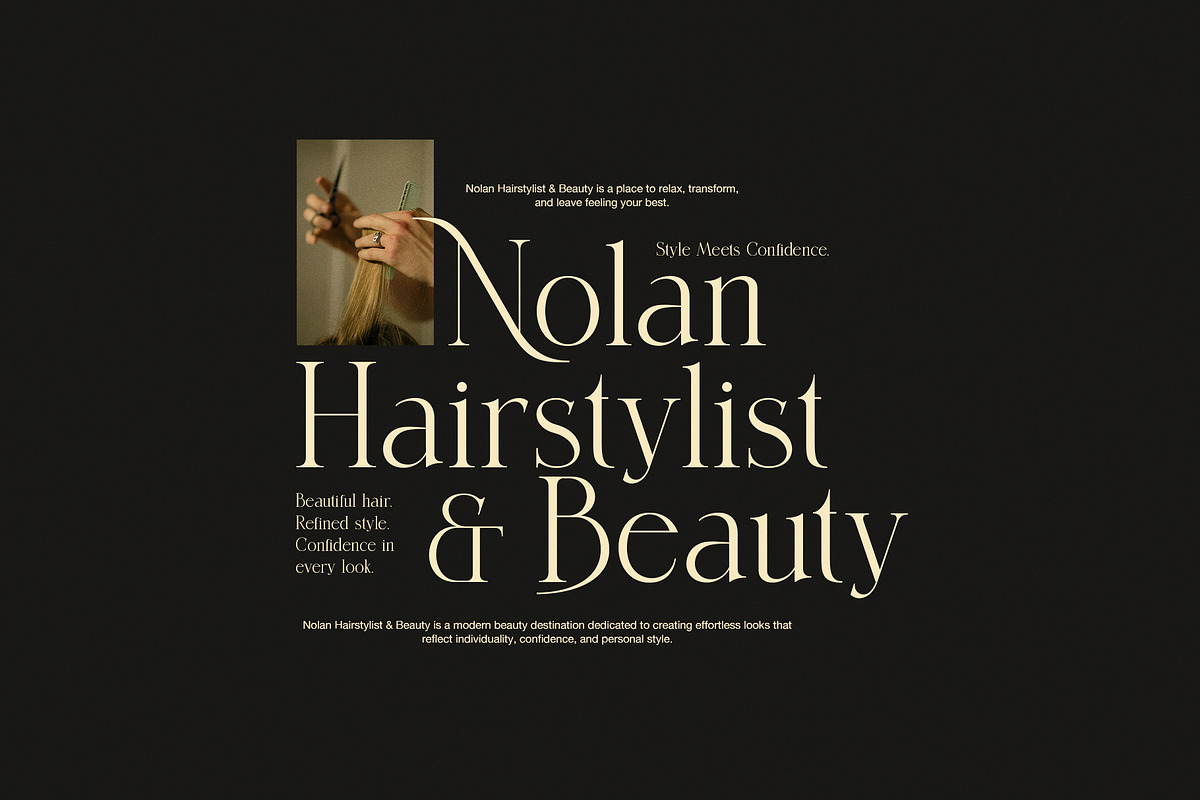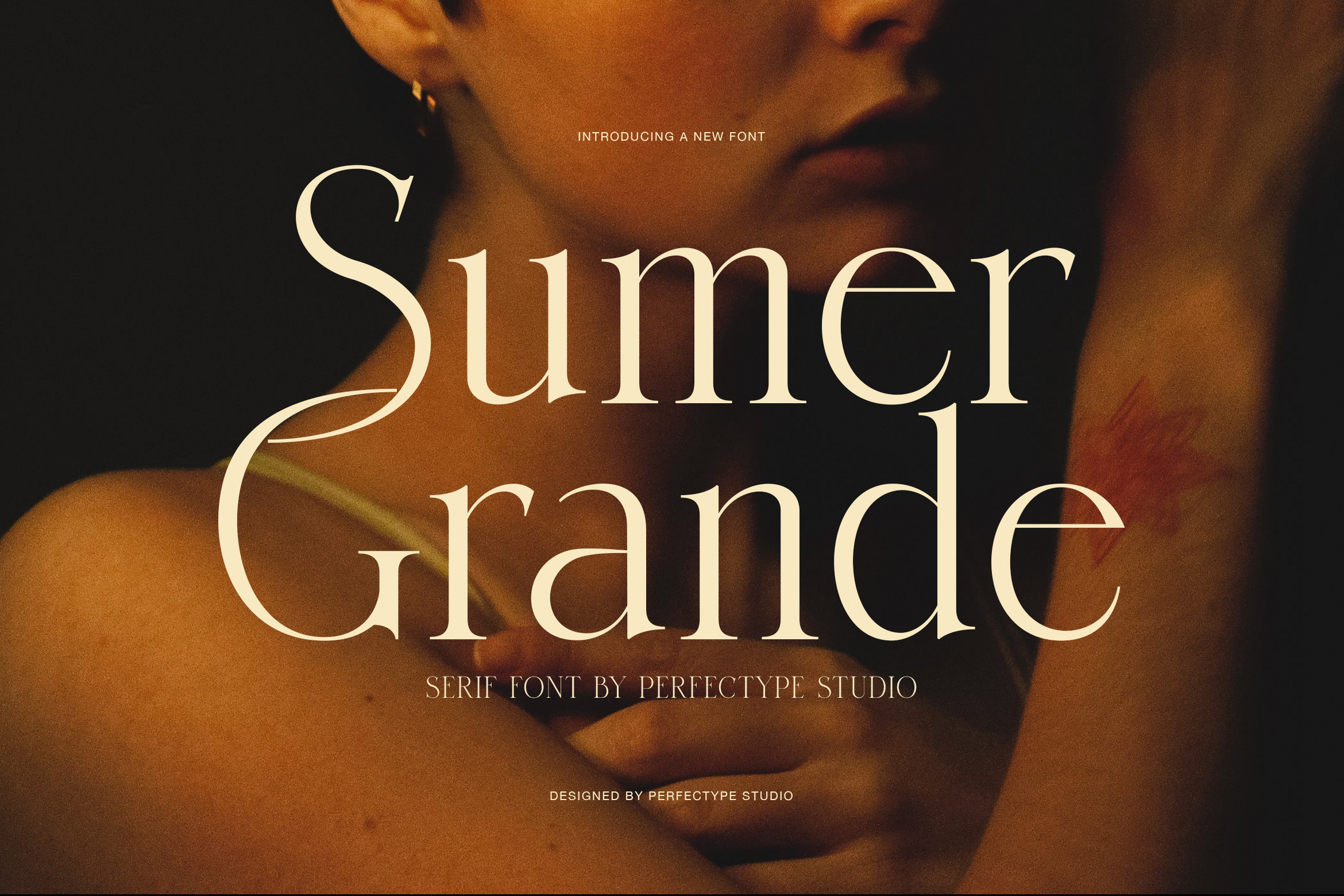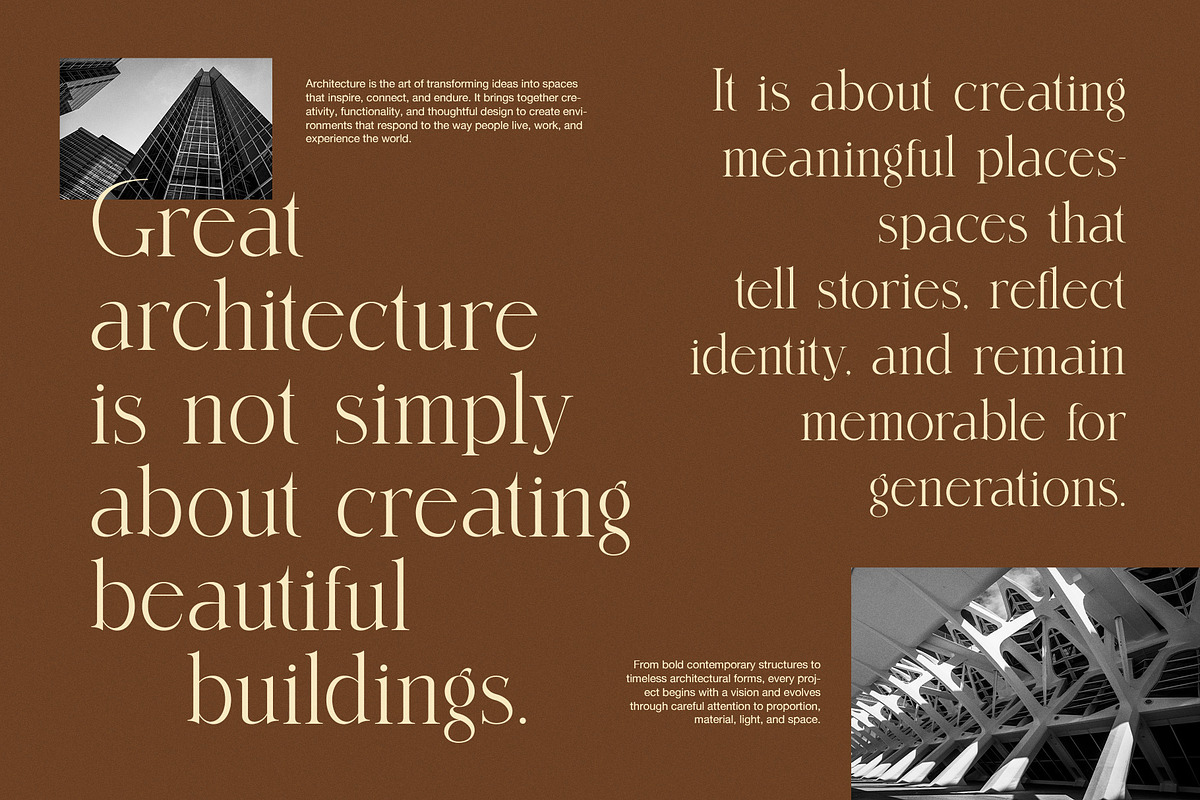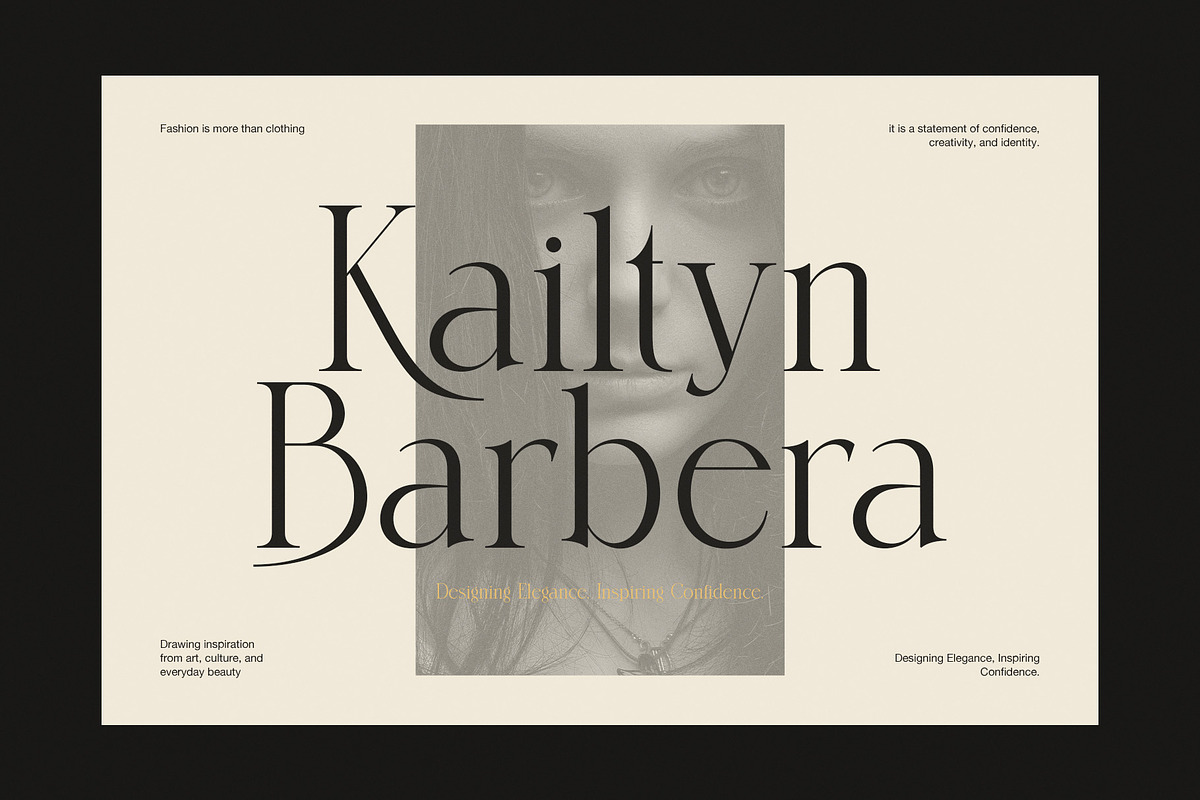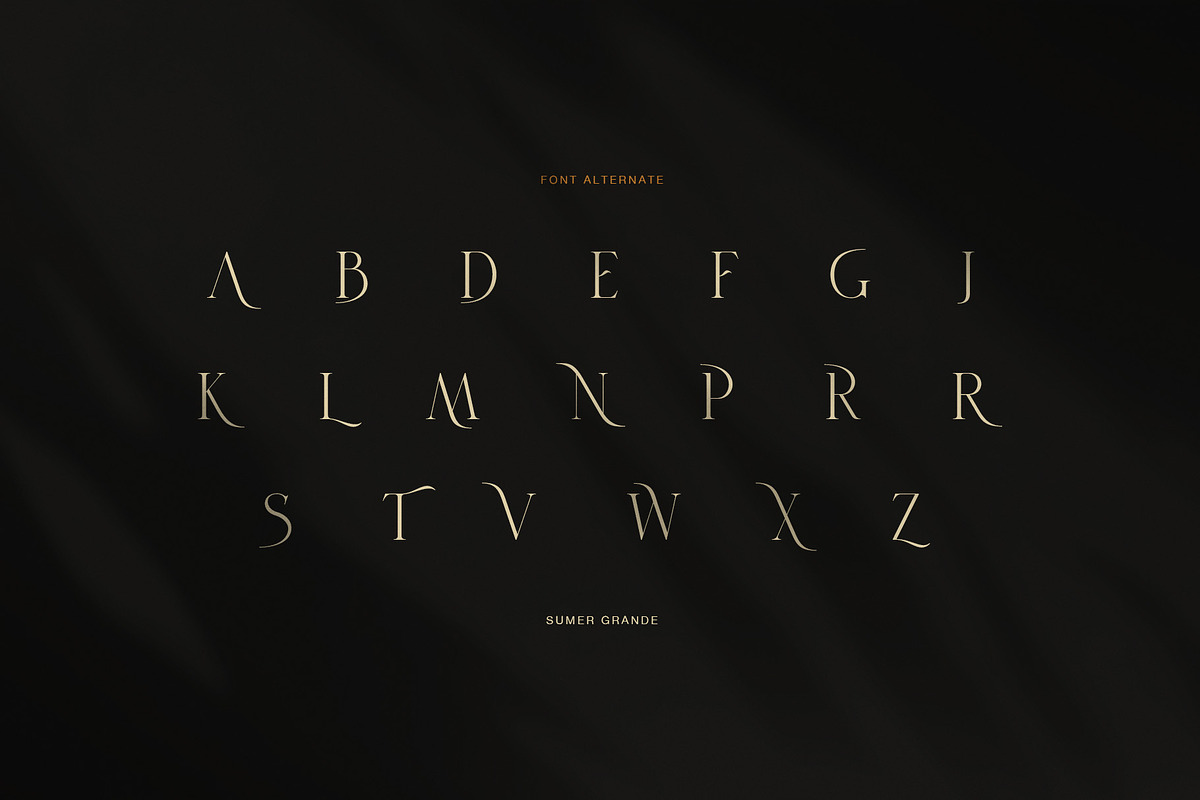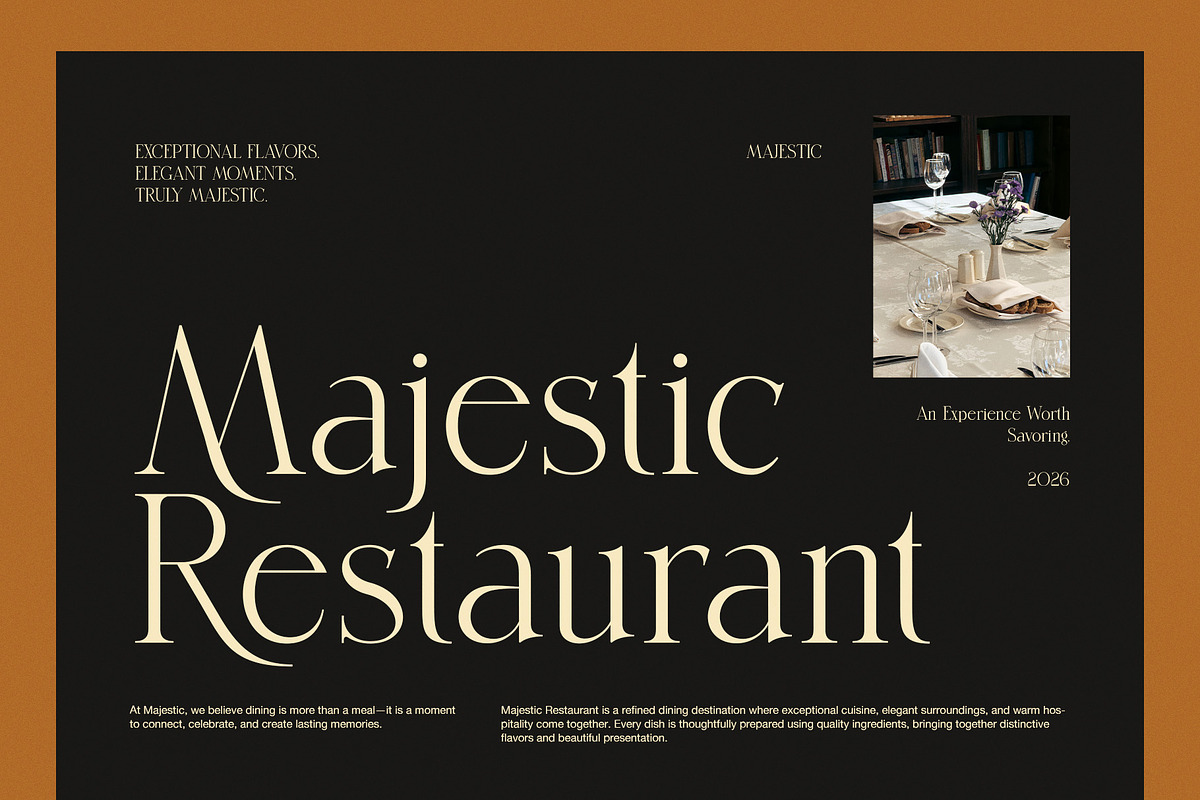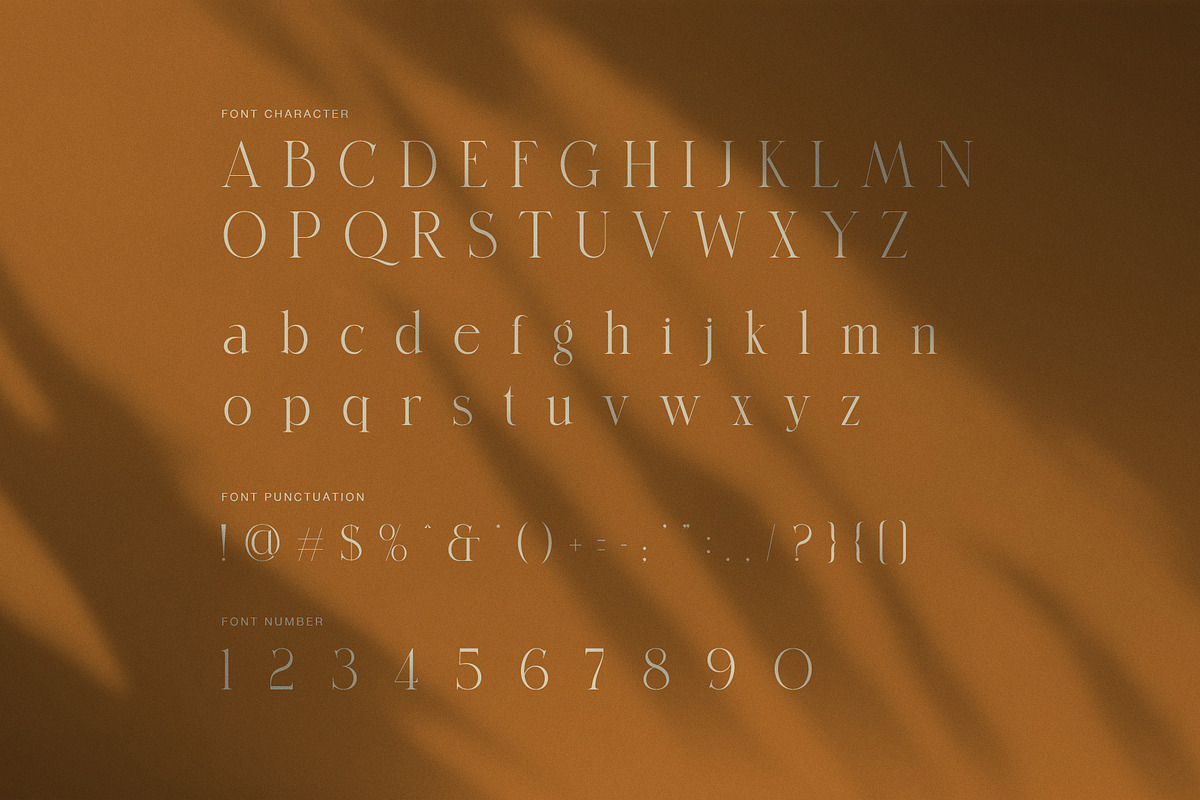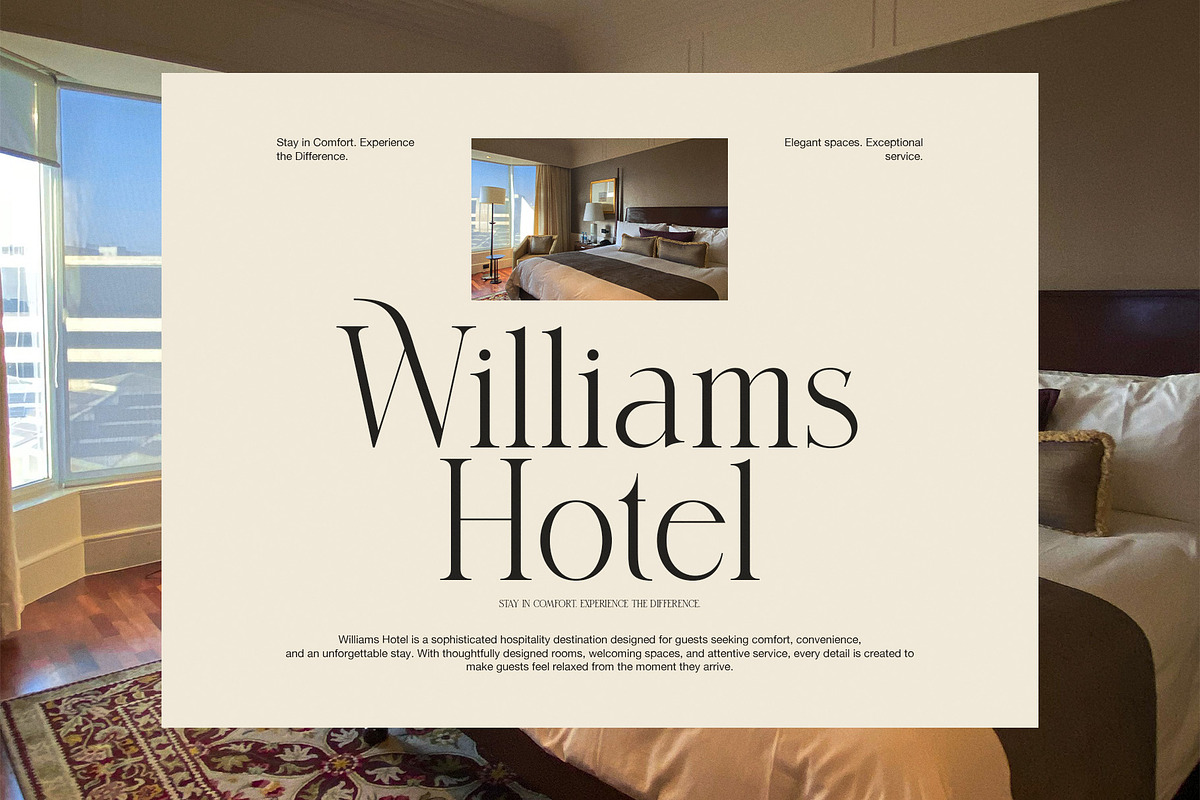
Sumer Grande Elegant Serif Font
Sumer Grande is an elegant fashion serif font created for designs that need a refined and confident look. With high contrast, thin hairlines, and graceful curves, this display serif brings a strong editorial feel to every headline. At the same time, its clean shapes keep the overall style modern and easy to use.
The font has a tall and refined structure, making it a natural choice for large titles, brand names, and visual campaigns. Its thick and thin strokes create a clear rhythm, while the fine details add a sense of luxury. In addition, the alternate characters give designers more ways to shape a unique wordmark or headline.
Sumer Grande works especially well for:
Fashion and luxury branding
Editorial magazines and campaigns
Beauty and skincare identities
Hotel and hospitality branding
Restaurant and food branding
Architecture and interior design
Photography and creative portfolios
Wedding invitations and premium stationery
Logos, packaging, posters, and social media graphics
Its refined letterforms make Sumer Grande especially effective when typography needs to become the main visual focus. Meanwhile, the alternate capitals can add a more expressive touch to selected words. Therefore, designers can keep a clean layout while still creating a distinctive brand style.
Sumer Grande is also flexible across different creative projects. Use the regular characters for polished headlines, then explore the alternate set when you want a more artistic result. Because of its strong contrast, the font looks best at display sizes where its fine lines can be clearly seen.